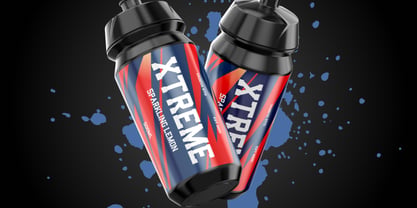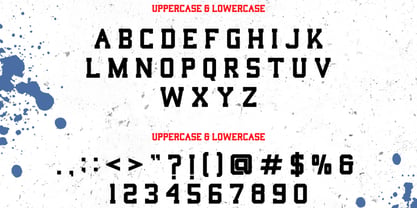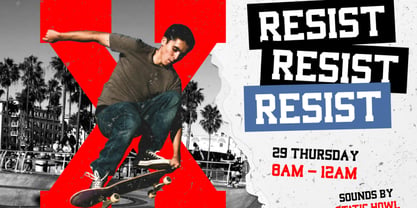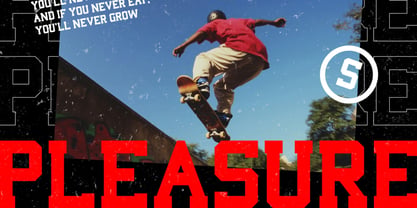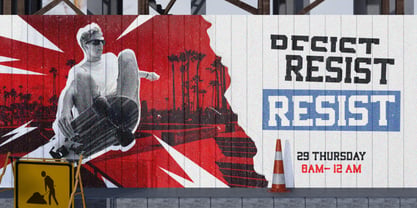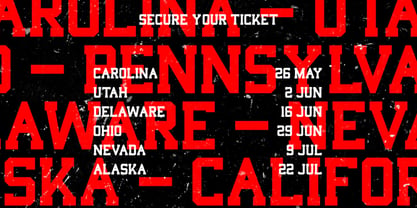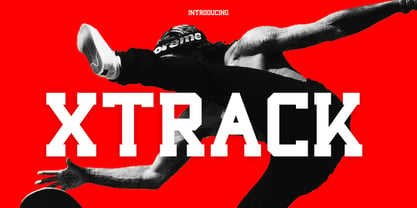
Xtrack
Xtrack is a dynamic slab serif font with a retro edge and condensed proportions, perfect for high-impact sports, and youth culture visuals. With strong letterforms and rugged appeal, it brings attitude and intensity to posters, banners, and skate or action sports graphics. Whether you're designing for extreme events or urban campaigns, Xtrack delivers bold presence and energetic character in every application. Xtrack Suitable for sports branding, skate posters, event flyers, youth marketing, active campaigns, retro signage, concert ads, slab serif titles, bold headlines, athletic promos, banner design, condensed font use, extreme sports, outdoor branding, vintage typography, race graphics, energetic layouts, dynamic type.